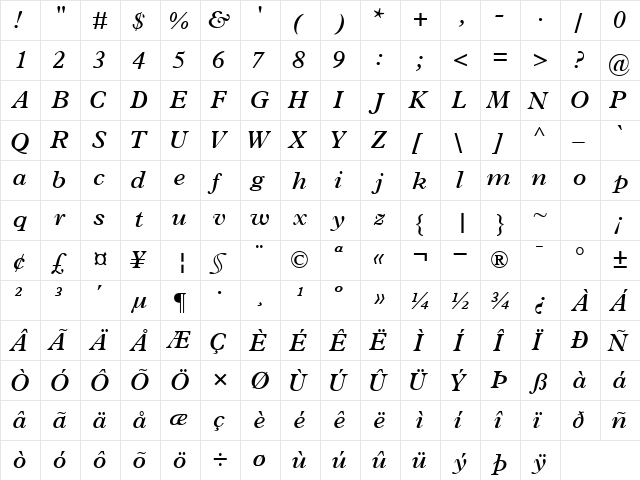
TerminusSSK Bold Italic Font Preview
Design Context for TerminusSSK Typeface
TerminusSSK takes a measured approach to typography — its balanced proportions and neutral character make it a reliable workhorse for both digital and print work. Its italic angle brings a sense of urgency and motion to the letterforms. The heavy weight commands attention and anchors typographic hierarchies.
Pro Tip: Try TerminusSSK for annotation and caption copy alongside an upright companion — the contrast in angle creates a dynamic but ordered typographic system.